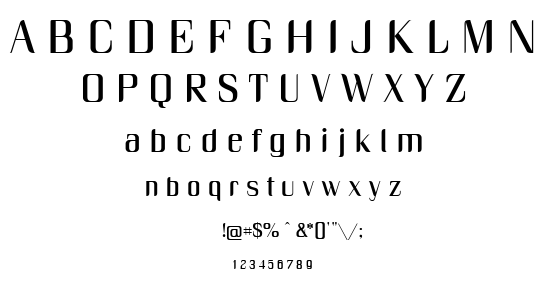
Display hybrid typeface. A little bit fashy, retro, but still contemporary font designed especially for your greatest headings & logotypes.Full Language Support